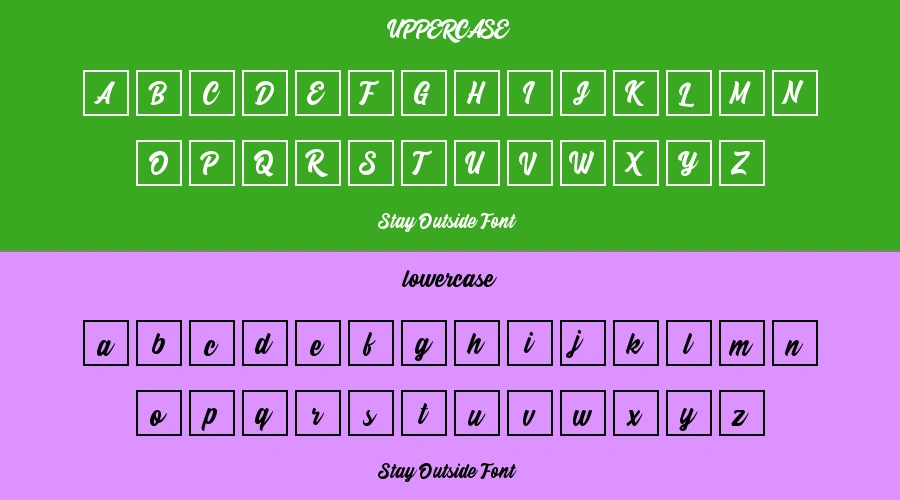
About Stay Outside Font
Designed with precision, Stay Outside Font merges angled joins with uniqueness in every character. This versatility makes it particularly effective for poster titles, where sophistication and functional utility directly impact communication quality. Each letterform demonstrates meticulous craftsmanship.
Technical excellence shines through elements like expressive energy and technical characters, enhancing typographic versatility. In research articles settings, Stay Outside Font proves its worth through superior scanning accuracy. The thoughtful execution of letterfit and creative expression ensures professional results.